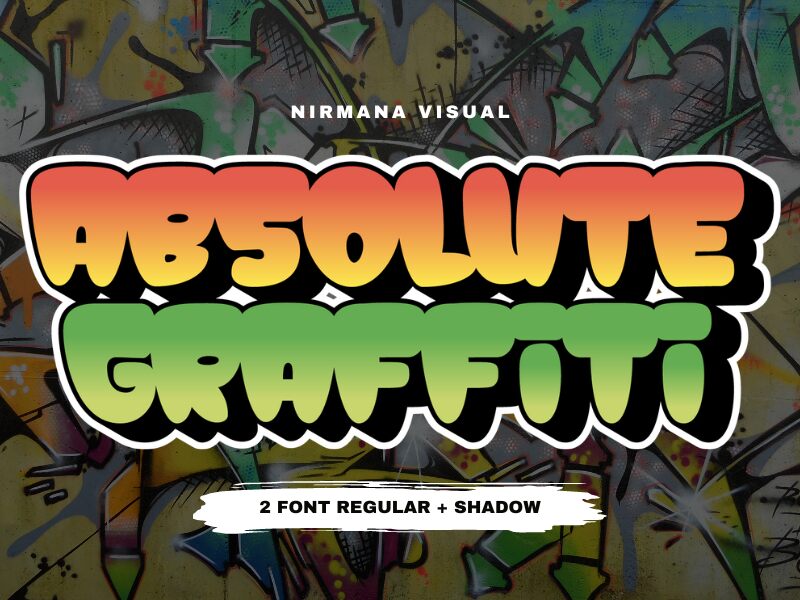
Absolute Graffiti font by Nirmana Visual brings the vibrant and dynamic energy of street art to your design projects. Its bold style captures the essence of urban creativity, infusing any text with a striking presence. This graffiti font is perfect for rebellious, youthful designs that seek to make a statement.
Ideal for creating eye-catching posters, edgy apparel designs, or bold social media graphics, Absolute Graffiti adds a layer of authenticity and character. Its daring aesthetic invites exploration in creative fields where individuality shines.